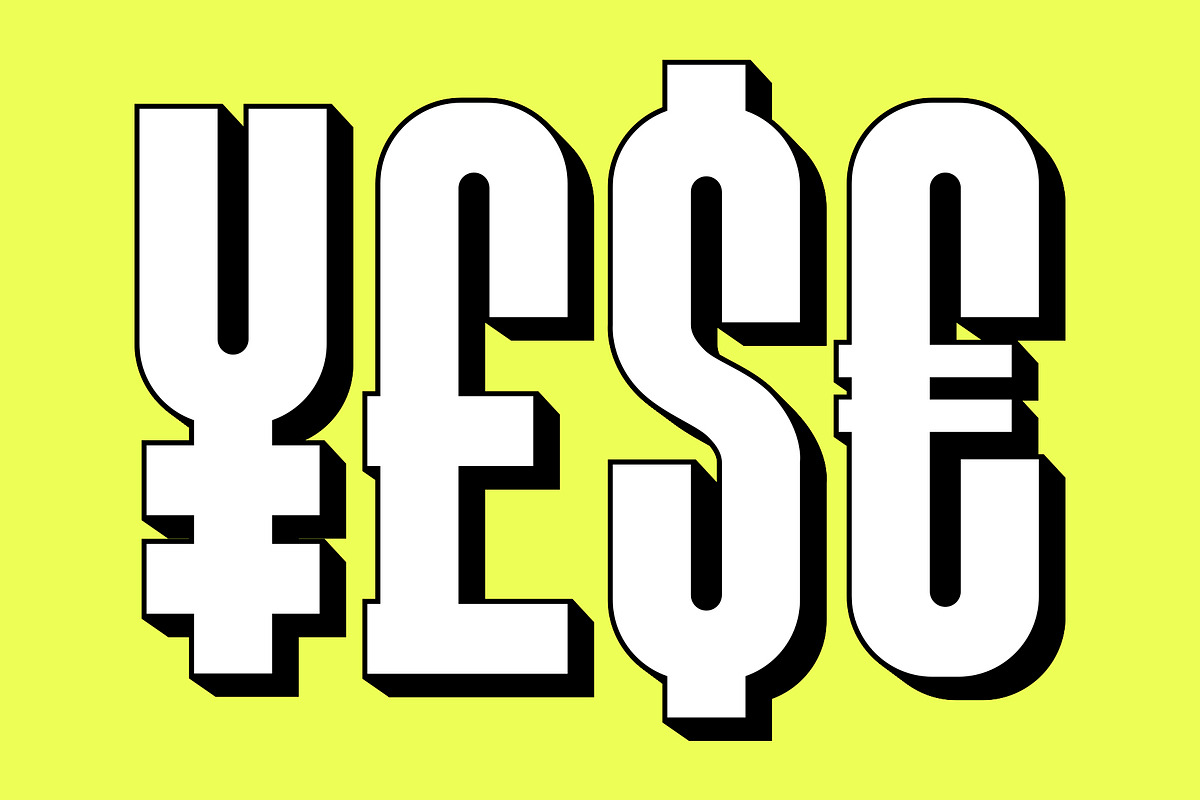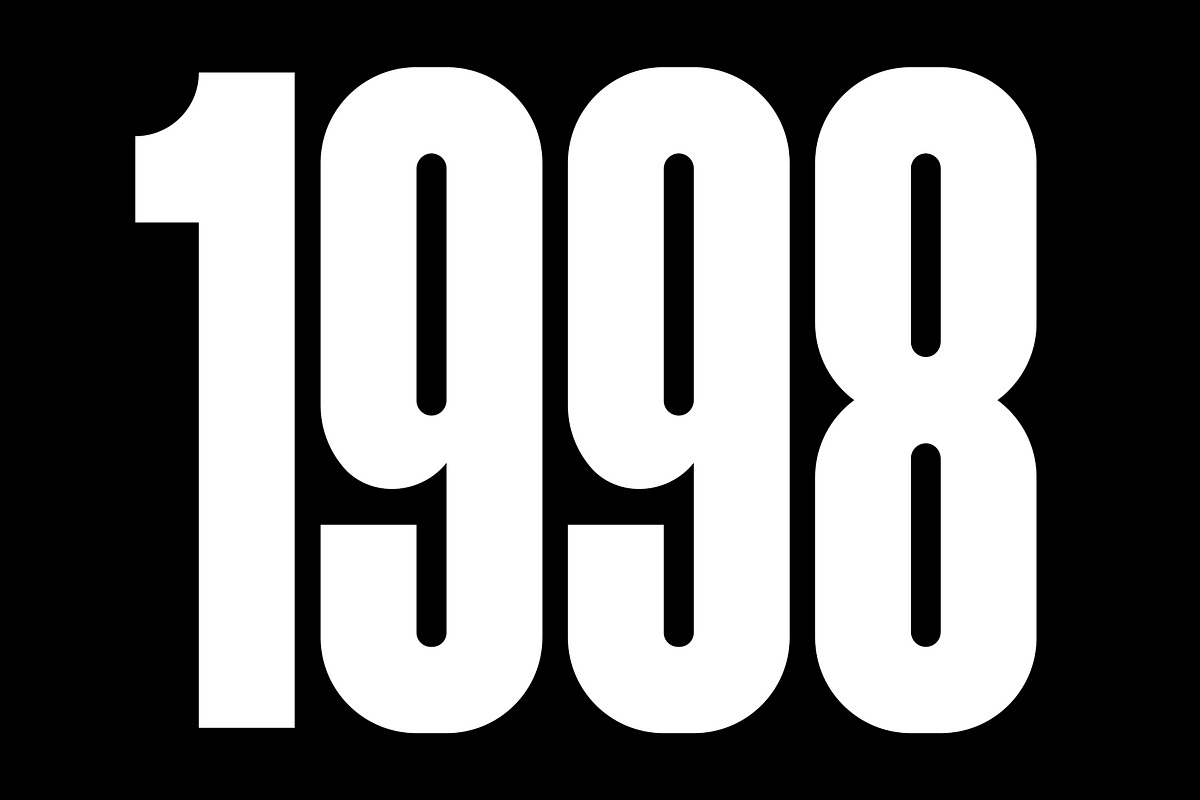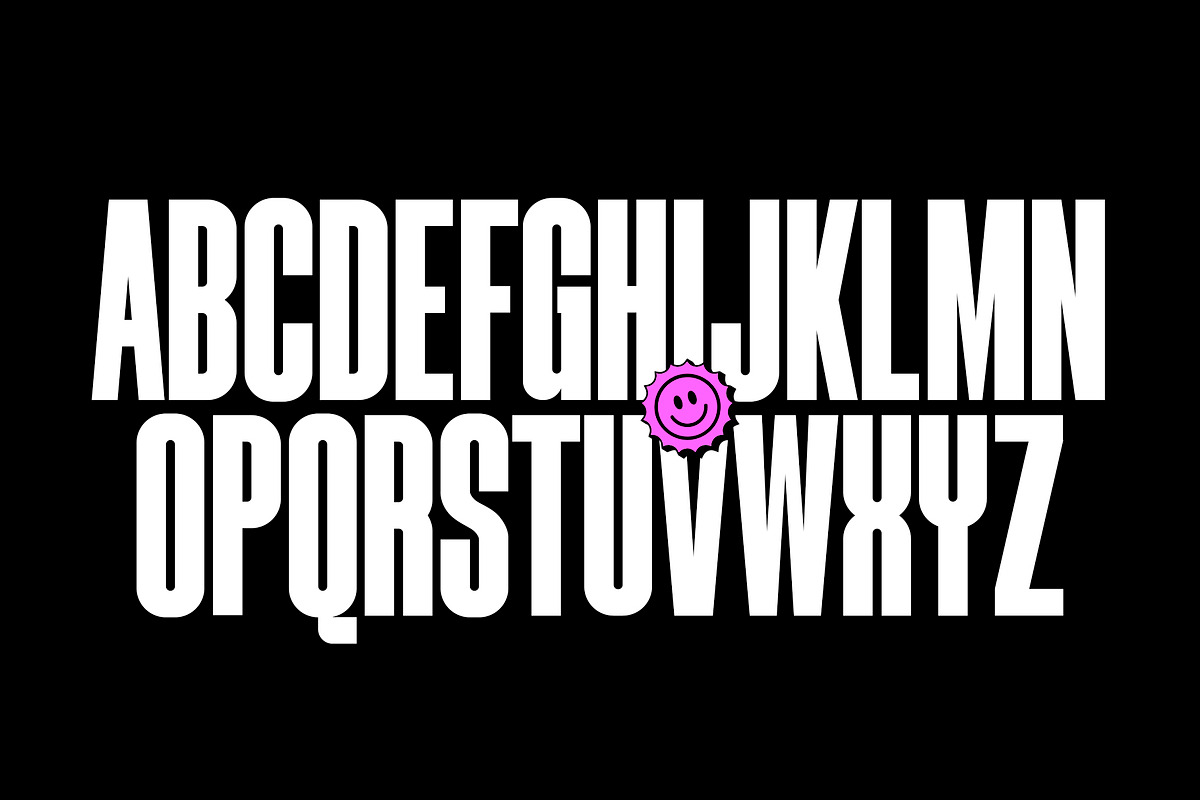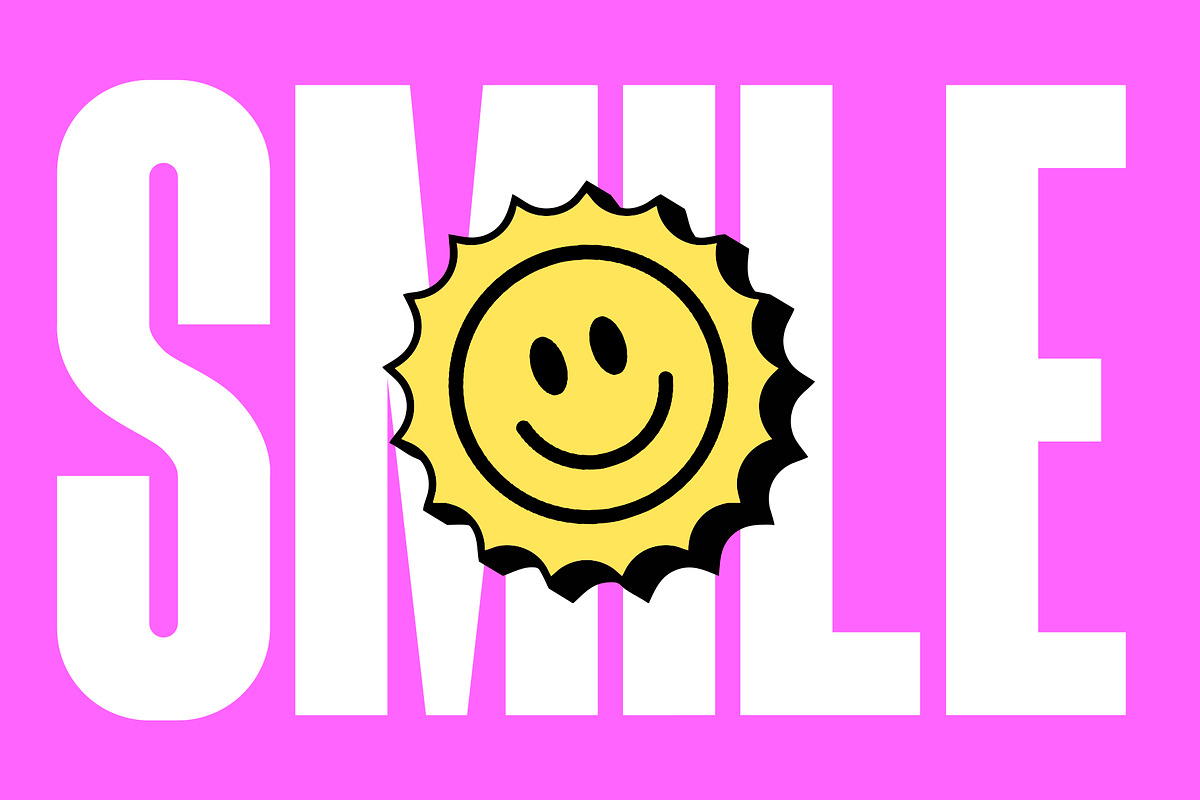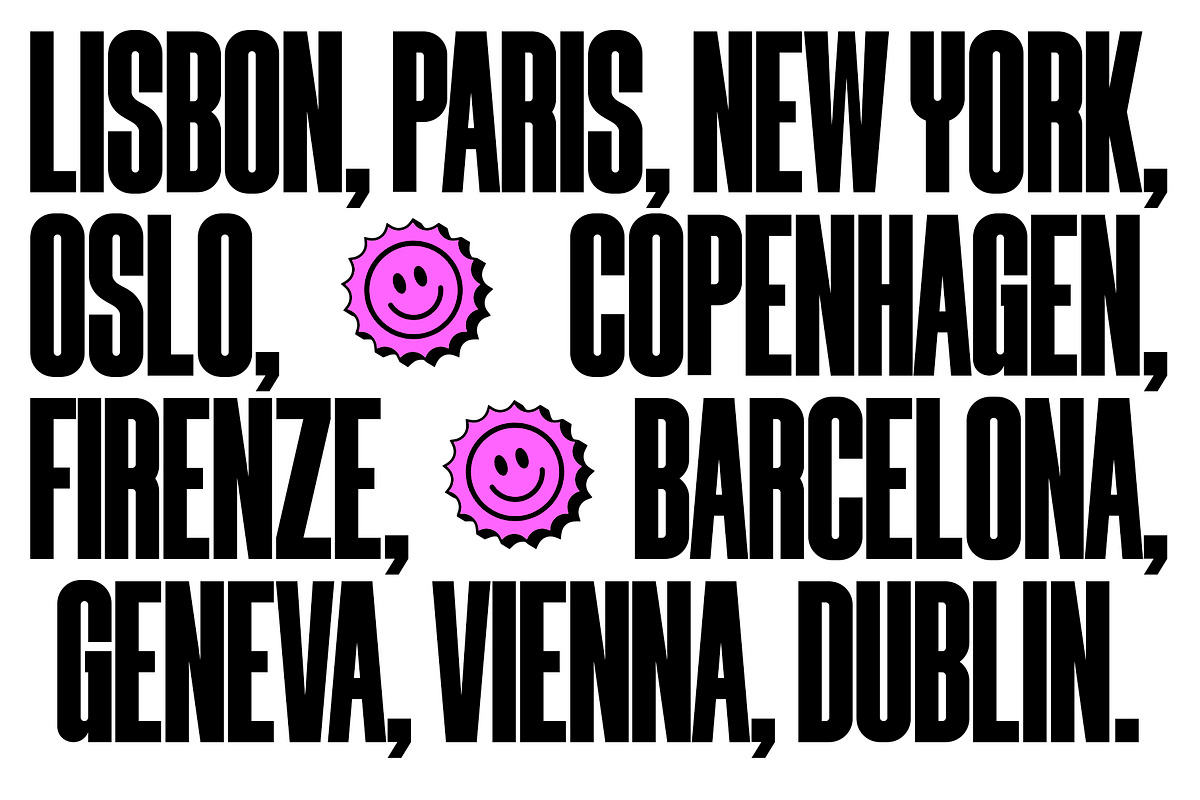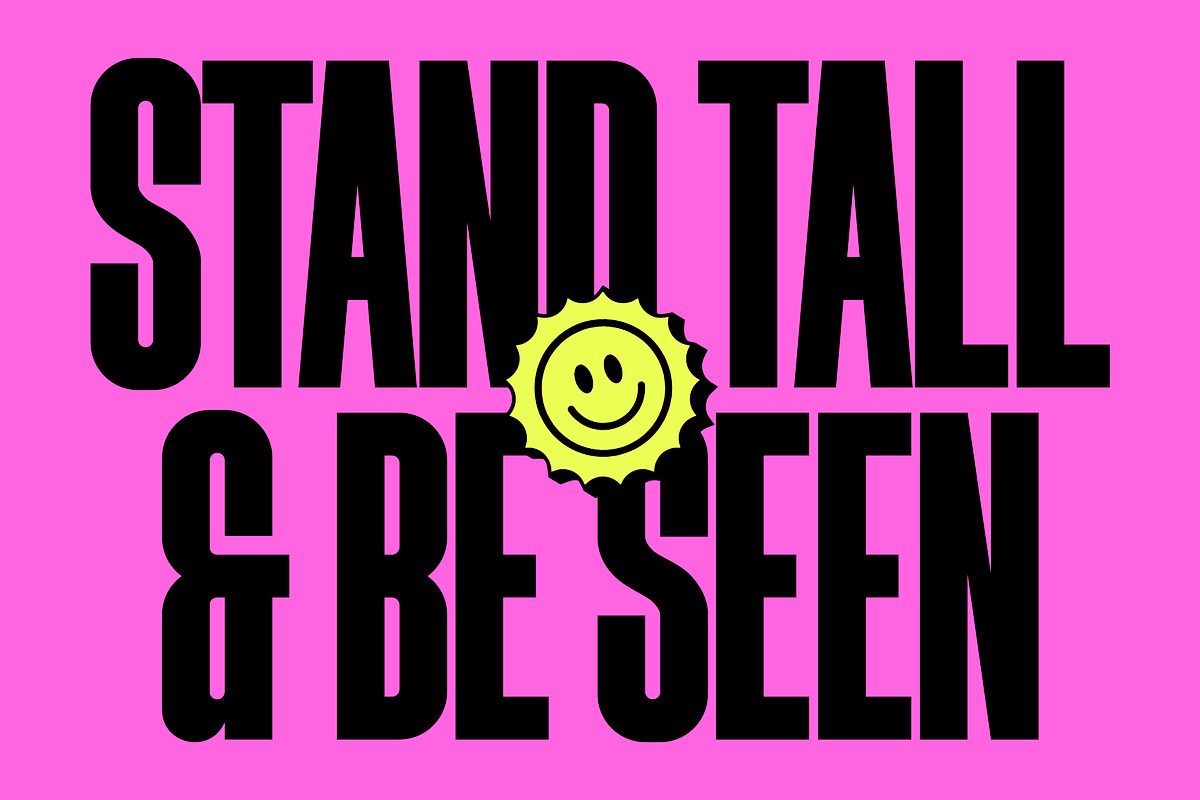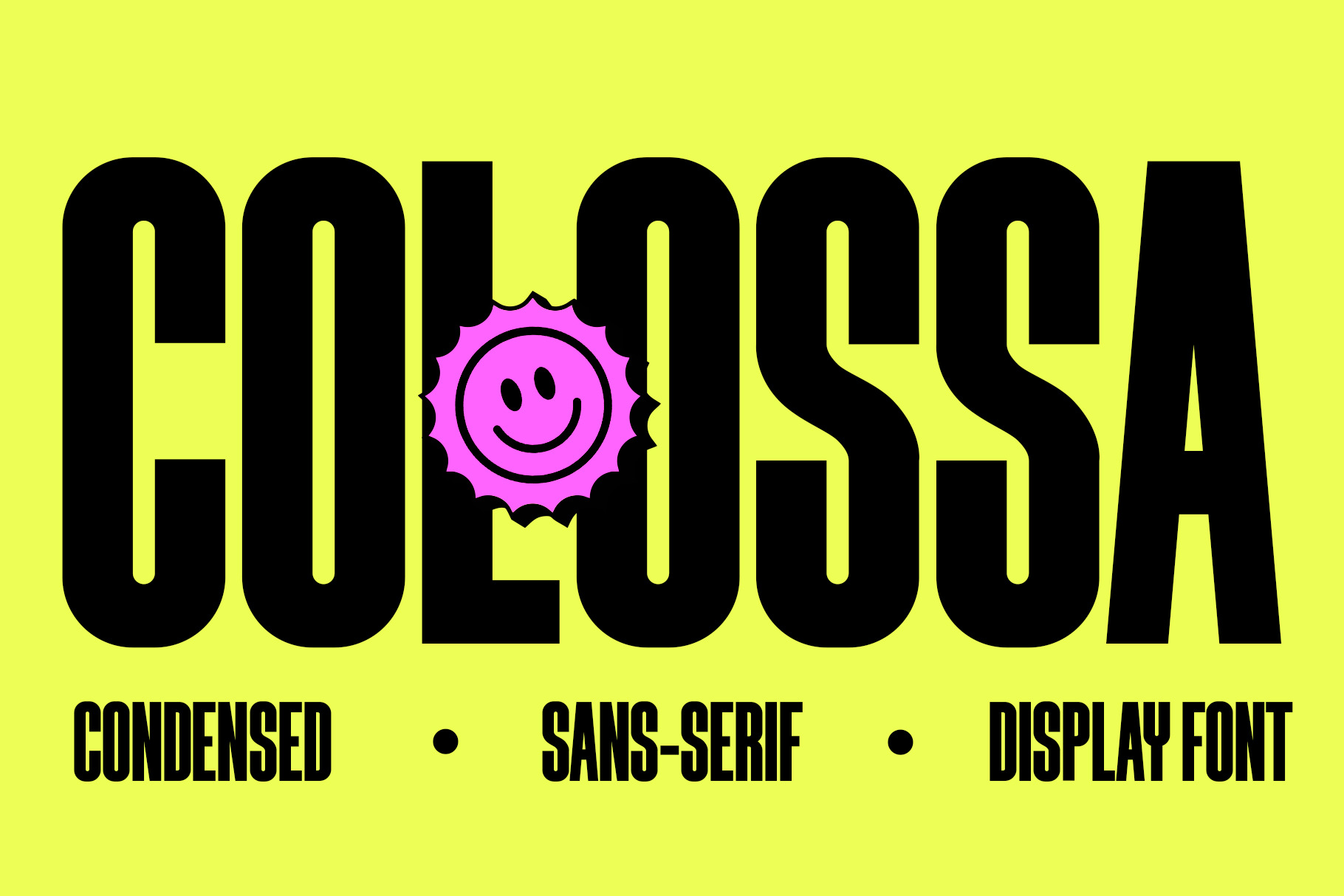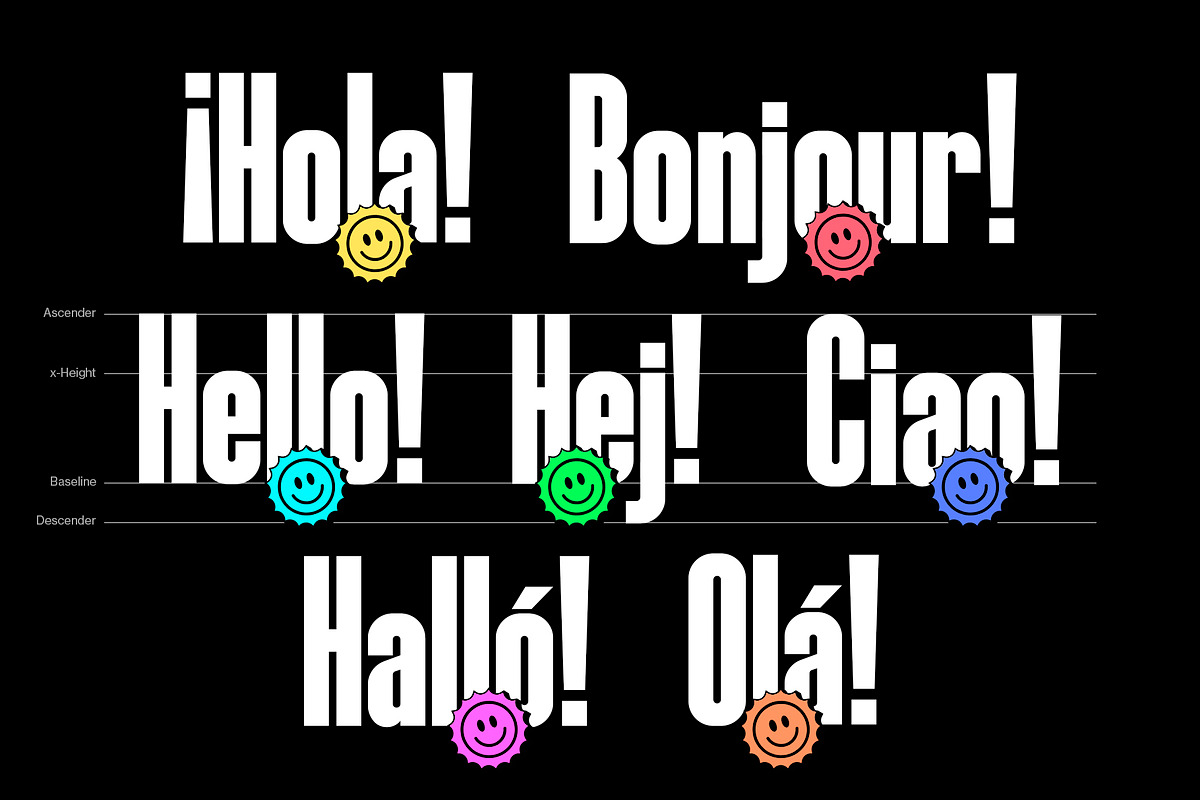
COLOSSA - Condensed Font
COLOSSA stands tall. Every line drawn in pursuit of harmony, every curve shaped with care. The typeface is available in a single weight, Black, and includes an oblique style.
COLOSSA Features
- Uppercase Letters
- Lowercase Letters
- Numbers, Symbols, and Punctuation
- Range of Latin Extended Characters
- Oblique Style